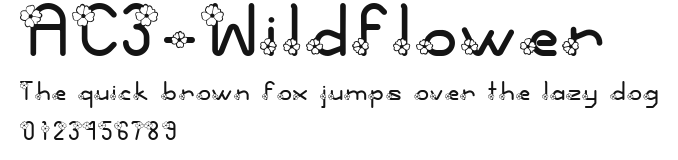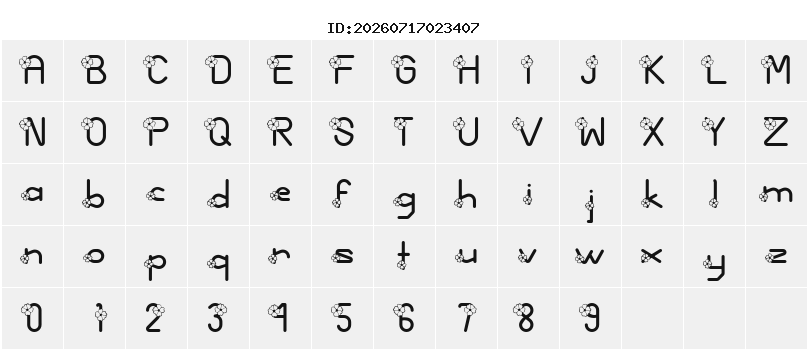
AC3-Wildflower Preview
• Font Name: AC3-Wildflower
• Full Font Name: AC3 Wildflower
• Character Count: 95
About AC3-Wildflower.ttf
AC3-Wildflower.ttf is a modern, elegant sans-serif font designed for ultimate readability and visual harmony. Perfect for branding, headlines, web design, and print materials.